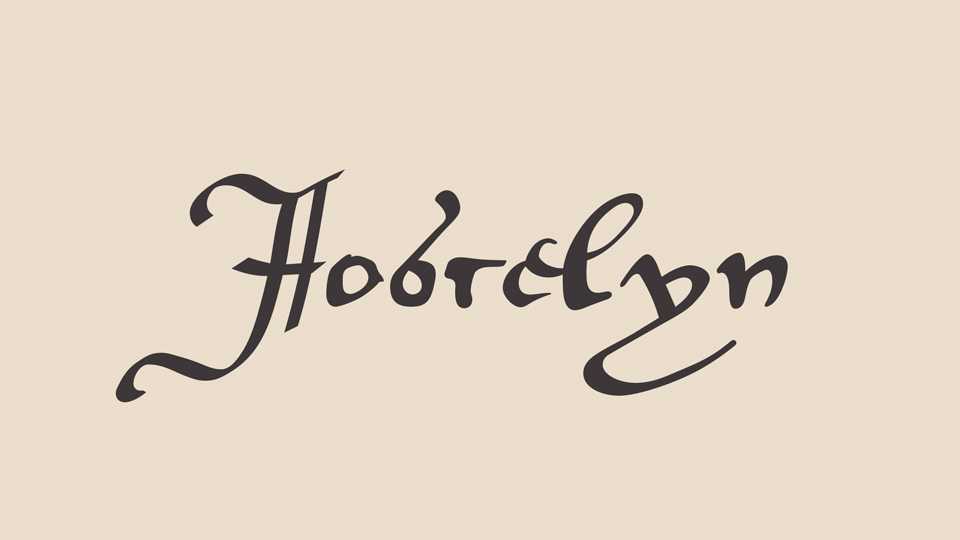
Download Joscelyn font, a medieval cursive gothic script inspired on the elegant hand of a scribe who produced the copy of Joscelyn’s Historiola. Joscelyn font handwriting took a very different course, mainly based on the Humanist Italic hand.
Designer: Peter Baker